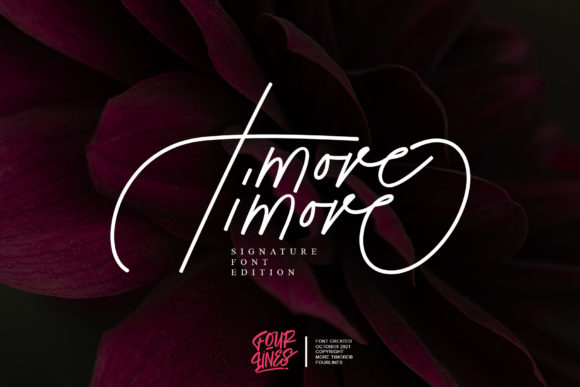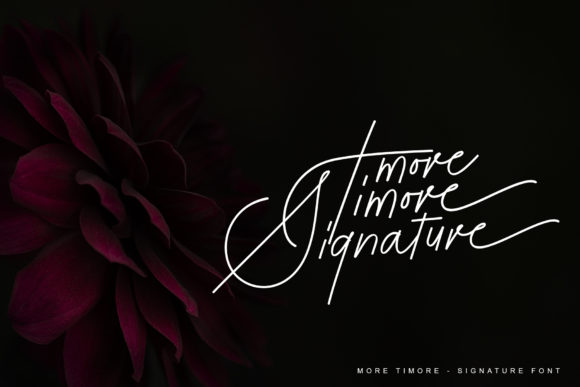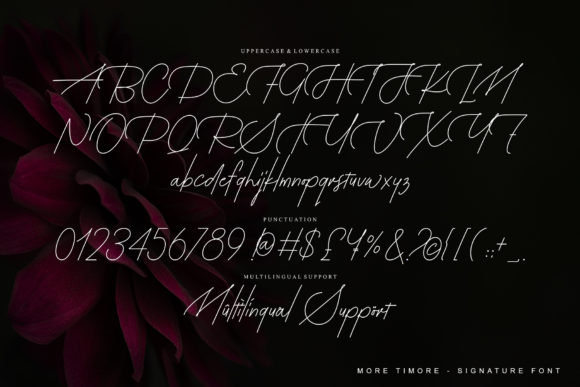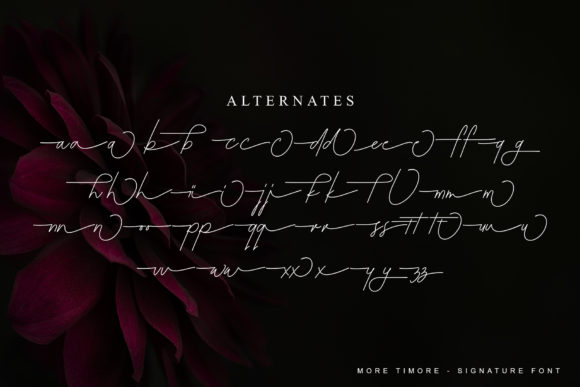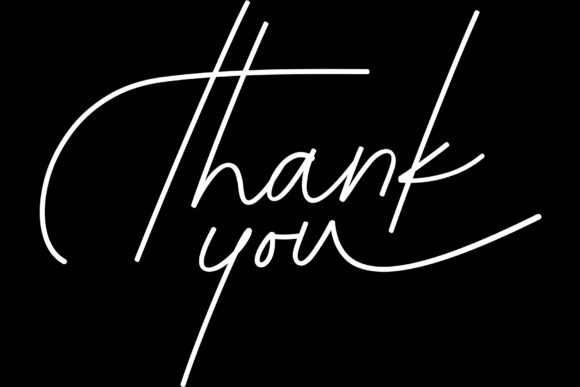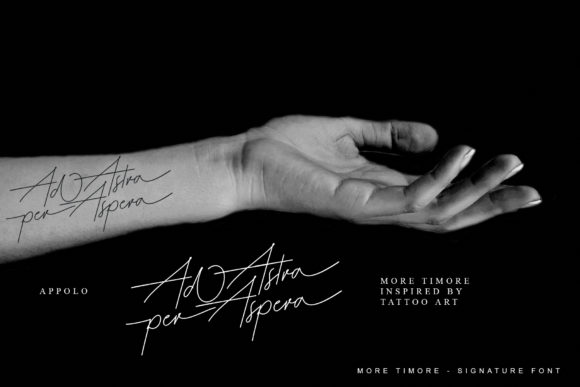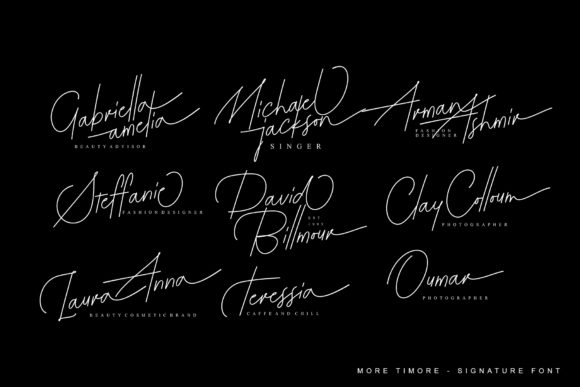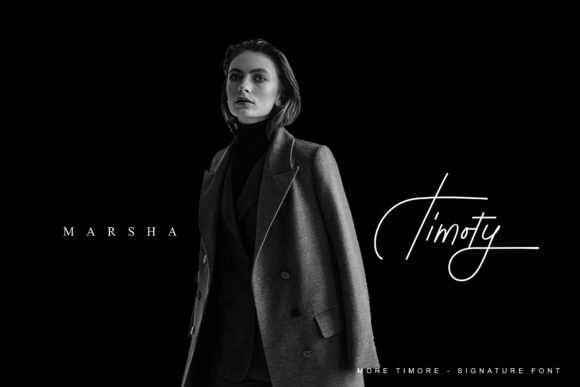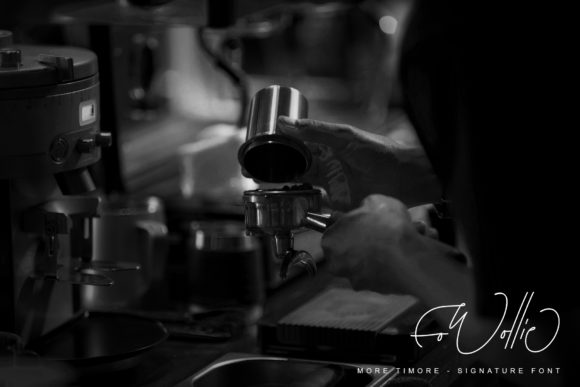
More Timore Font
About More Timore Font
More Timore is a thin lettered and graceful script font. It will add a luxury spark to any design project that you wish to create! This font is PUA encoded which means you can access all of the amazing glyphs and ligatures with ease!